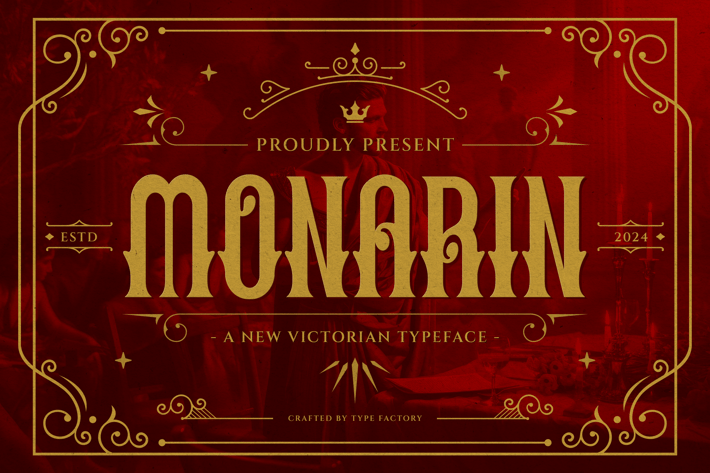
Monarin - Victorian Typeface
Monarin is an exquisite Victorian typeface that captures the ornate and decorative elegance of the 19th century. With its intricate details and vintage charm, Monarin is perfect for designs that require a historic, sophisticated feel, such as invitations, packaging, posters, and branding for luxury products. The elaborate serifs and flourishes of this typeface evoke the grandeur and refinement of the Victorian era, making it ideal for adding a timeless, classic touch to your creative projects.